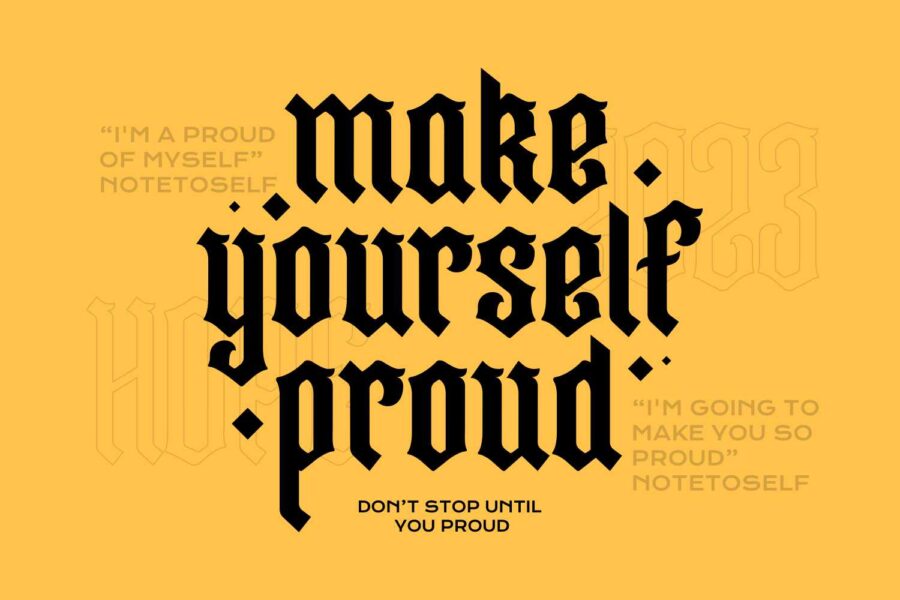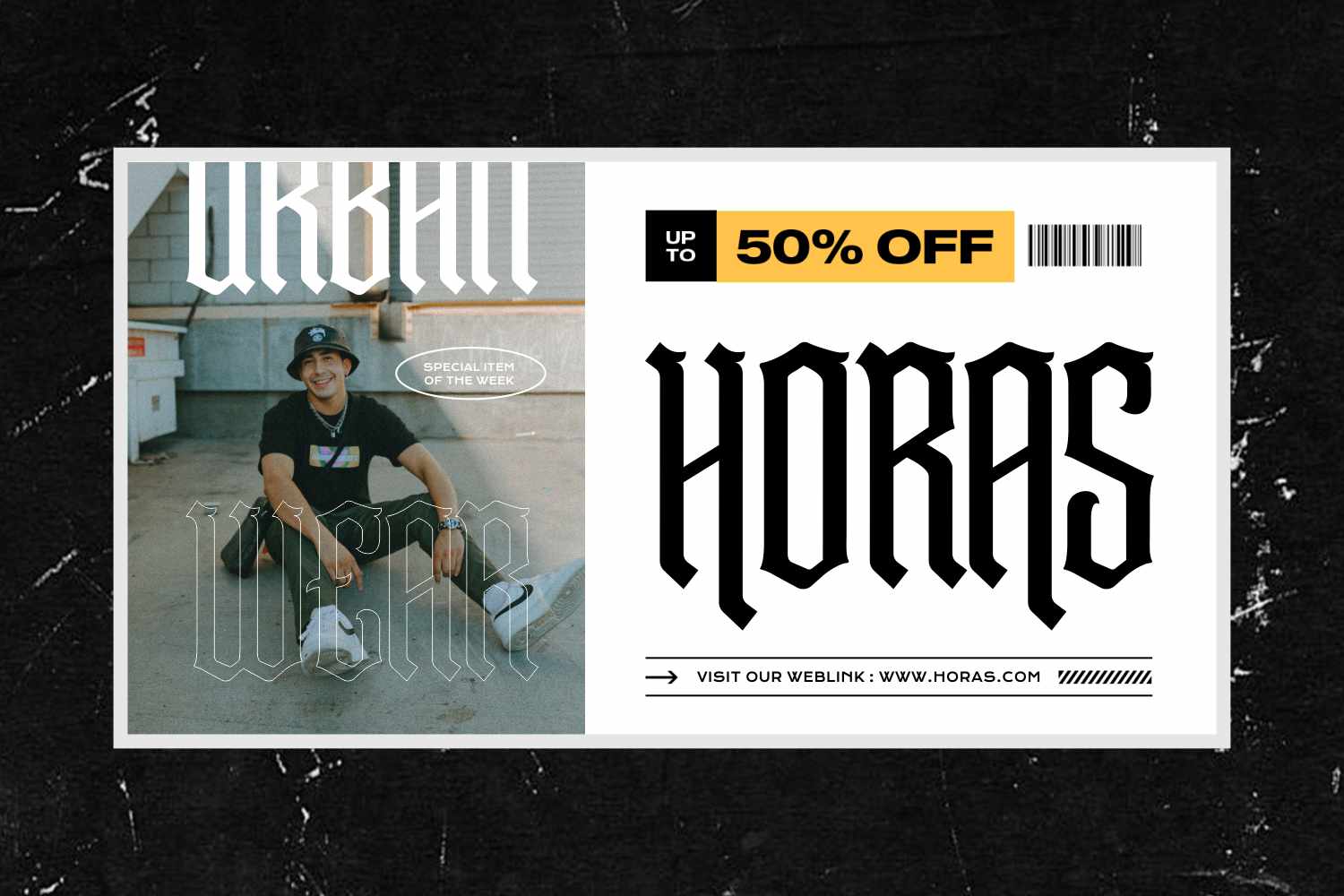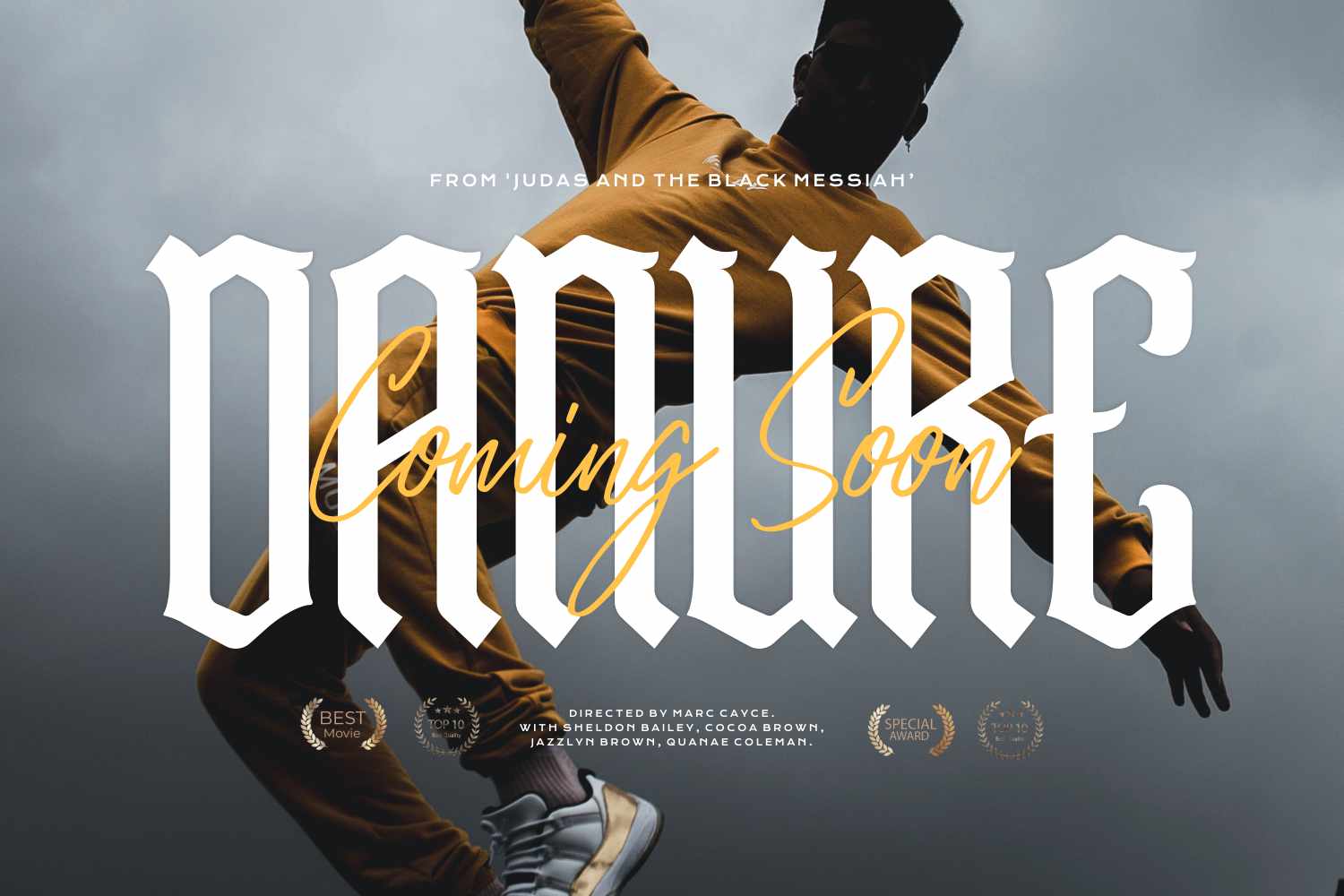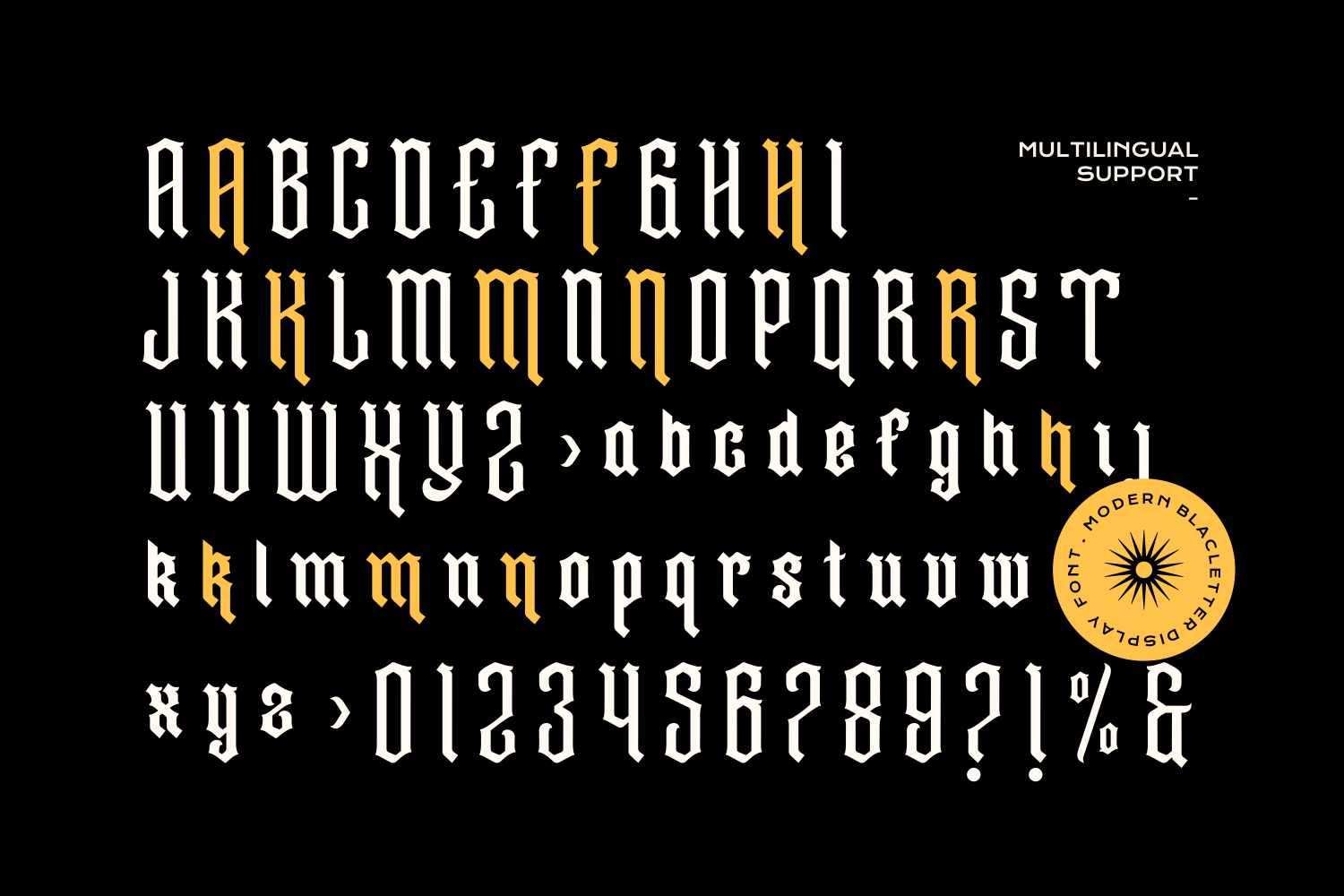
Youtesh
Youtesh is a modern blackletter display font that combines the bold attitude of gothic lettering with a fresh, contemporary twist. With its sharp edges and dynamic strokes, this font radiates strength, confidence, and urban style. It’s designed to stand out, making it perfect for projects that demand a strong visual impact and a modern gothic aesthetic.
Ideal for branding, posters, streetwear, music covers, and editorial designs, Youtesh delivers a striking personality that resonates with modern culture and edgy design trends. Whether used for logos, merchandise, or bold typographic statements, this font ensures your message is both powerful and stylish.